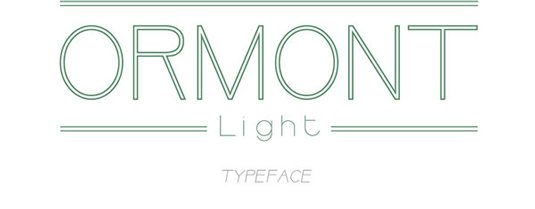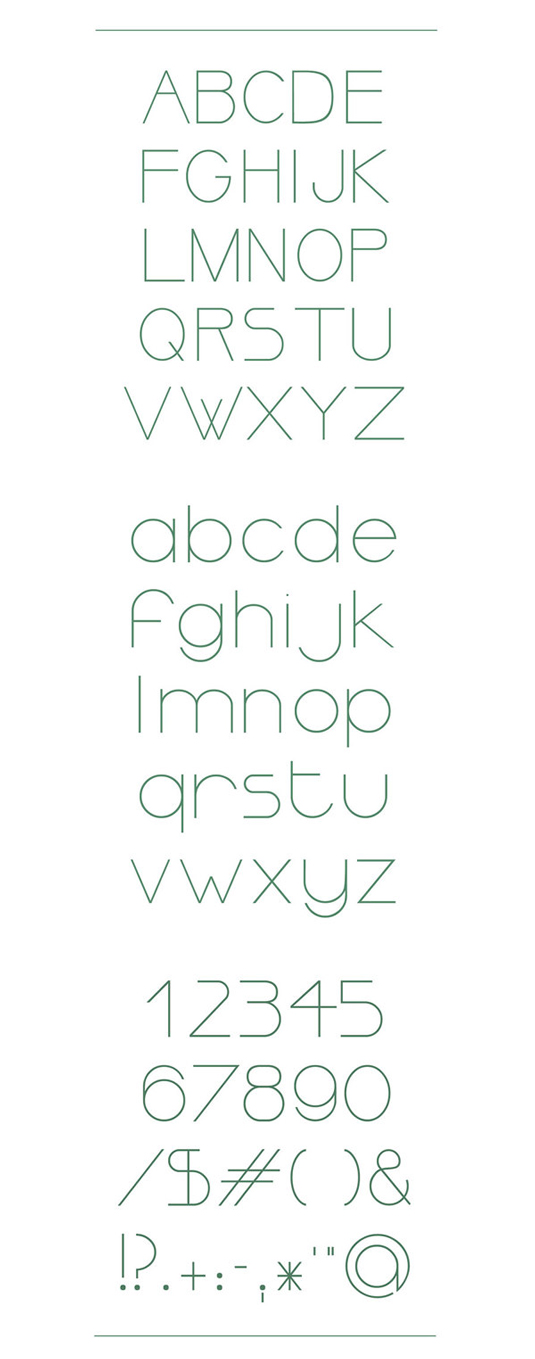
Font of the day: Ormont Light
Ormont Light by Youssef Habchi
Today's font of choice, Ormont Light, is a sans serif typeface, adapted specifically to titles, created by graphic designer and illustrator Youssef Habchi. Including a full set of upper and lowercase letters and numbers, Ormont Light is free for both personal and commercial use.